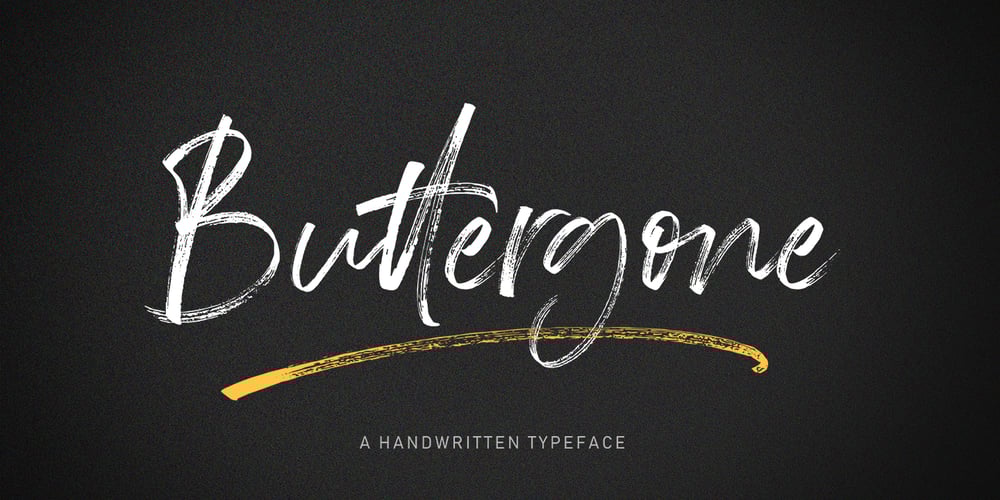
Buttergone Brush Font Family was designed by Muhammad Fajar and published by Lucky Type. Buttergone Brush contains 1 styles and family package options. Buttergone is a new modern brush font with an irregular baseline. a contemporary approach to design, handmade natural, suitable for use in title design such as clothing, invitations, book titles, stationery designs, quotes, branding, logos, greeting cards, T-shirts, packaging designs, posters, and more. Complete with uppercase and lowercase letters, as well as multi-language support, numbers, punctuation, as well as some ligatures and swash glyphs. Thanks so much for looking and please let me know if you have any questions.